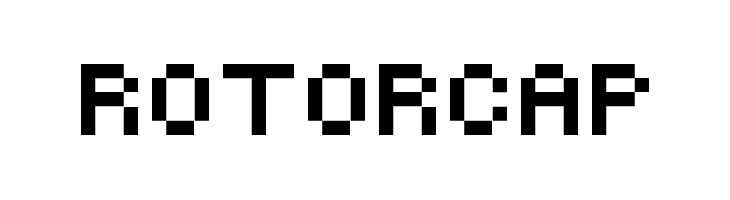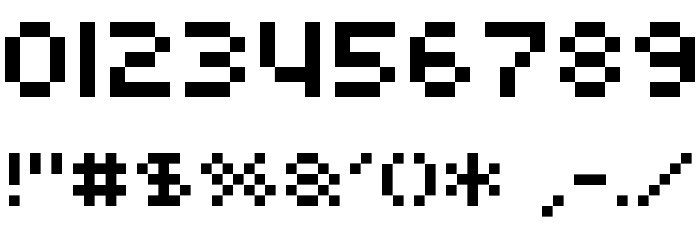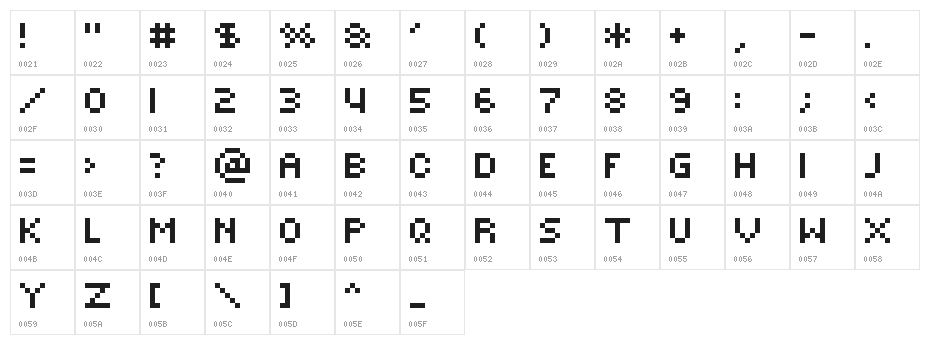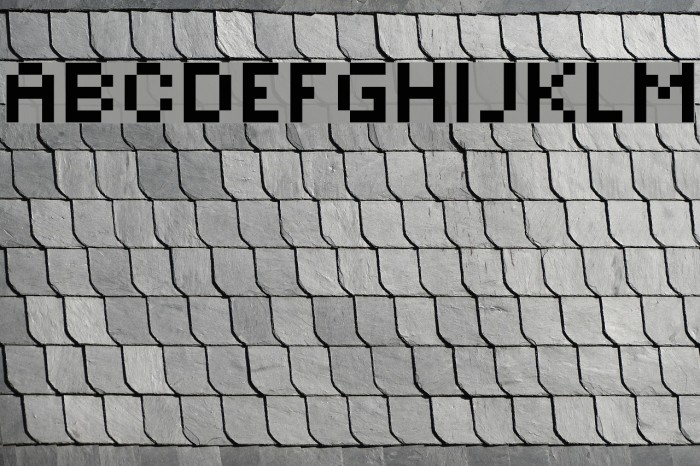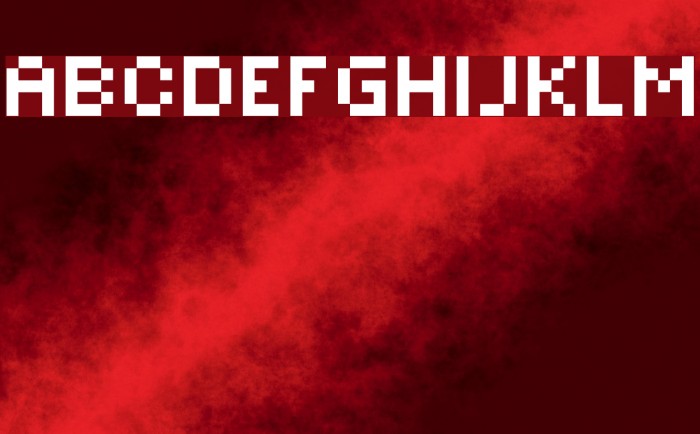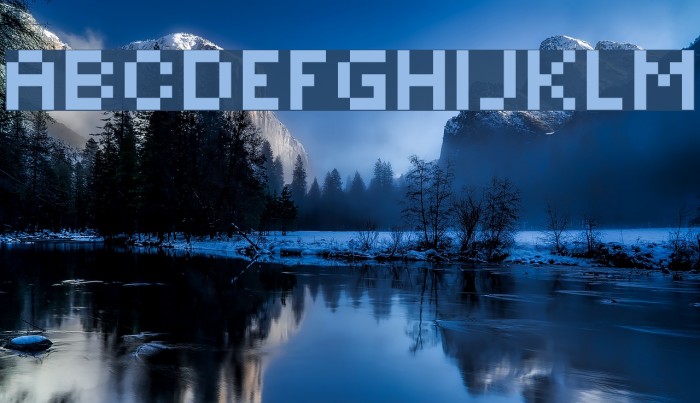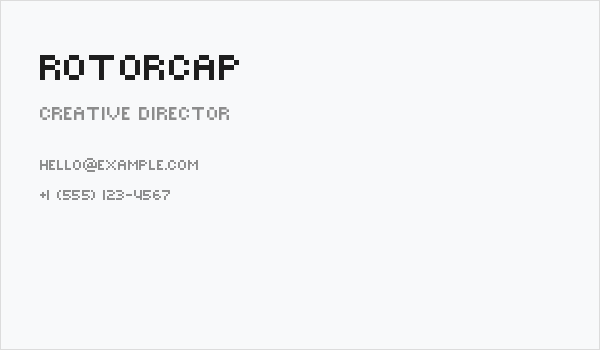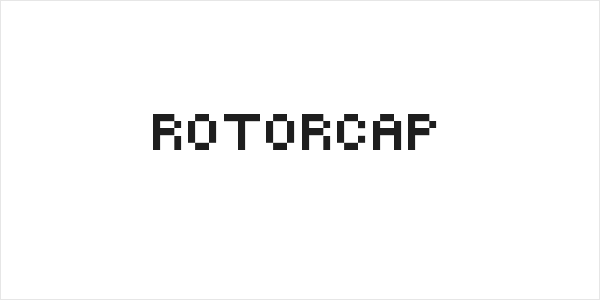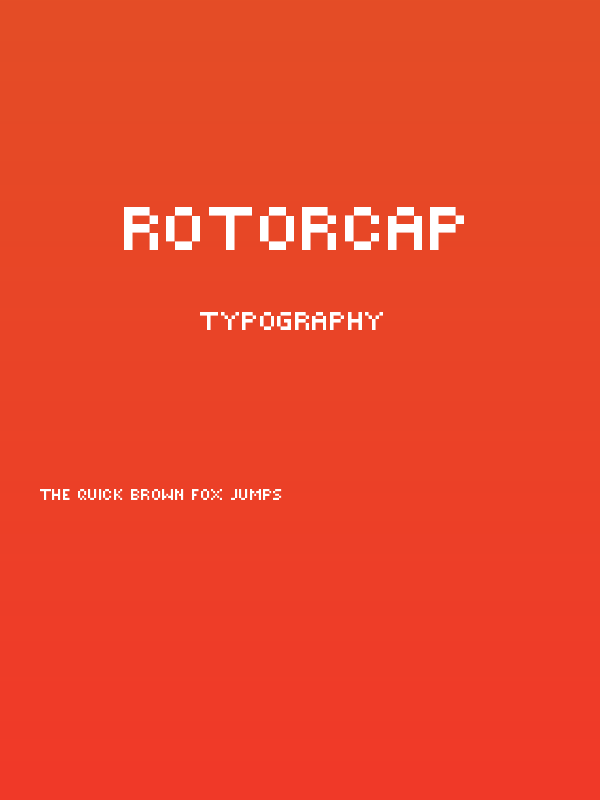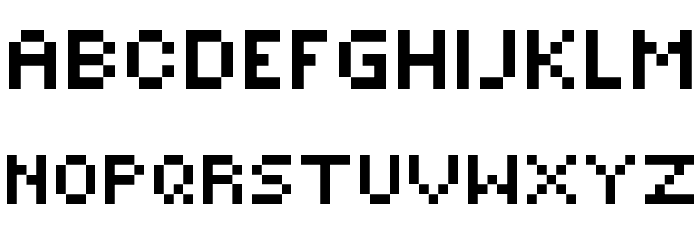
ROTORcap Font
ROTORcap Description
This font features a bold, pixelated design reminiscent of early digital displays and video games. Each character is constructed with a grid-like precision, giving it a distinctly retro and technological feel. The uppercase and lowercase letters maintain a consistent height, enhancing the uniformity and readability of the text. Numbers and special characters follow the same pixelated style, ensuring a cohesive look across all elements. The font's geometric structure and lack of curves contribute to its blocky appearance, making it ideal for projects that require a vintage or digital aesthetic.